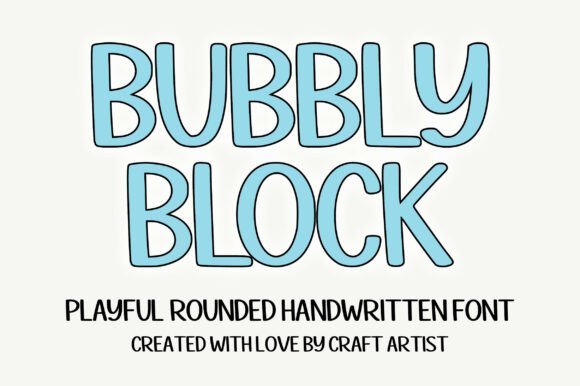
Have you ever been brainstorming a new design project and suddenly, a burst of creativity hits you? You envision a colorful, whimsical world that radiates joy and playfulness. That’s exactly the kind of vibe you can achieve with the Bubbly Block Font.
Bubbly Block Font is a delightful, rounded handwritten font that brings a smile to any design. Its bold, bubbly shapes and smooth curves make it perfect for kids’ designs, branding, stickers, t-shirts, planners, social media, posters, and cheerful creative projects. Whether you’re a seasoned designer or just starting out, this font is a valuable addition to your toolkit.
Bubbly Block Font Key Features
- Unique Characteristic: Features a unique bubbly design with rounded edges and soft corners
Bubbly Block Font Review
Overall, I’d say the Bubbly Block Font is a fun and playful typeface. ✨ It’s perfect for creating a carefree atmosphere in children’s books, social media, or even packaging design. The bubbly curves and rounded edges give off a sense of whimsy, making it an excellent choice for brands that want to appear friendly and approachable.
One of the things that I love about Bubbly Block is its versatility. ✨ You can use it in various contexts, from headings to body text, and it will always add a touch of personality to your design. The font also comes in a range of weights and styles, allowing you to customize it to fit your specific design needs.
However, there are a few limitations to consider. ⚠️ For one, the font may not be suitable for formal or professional designs, as its playful nature may come across as unprofessional. Additionally, the font may not be as legible at smaller sizes, which can be a concern if you plan to use it in text-heavy designs.
Here are some pros and cons to consider:
- ✨ Fun and playful design
- ✨ Versatile and customizable
- ⚠️ May not be suitable for formal designs
- ⚠️ May not be legible at smaller sizes
Bubbly Block Font: A Practical Application Guide
For the most effective use of Bubbly Block Font:
1. Use it sparingly to add visual interest to headings or titles.
2. Pair it with clean, simple fonts for maximum readability.
3. Experiment with different font sizes and colors to create a unique look.
Bubbly Block Font is ideal for:
1. Designing playful, eye-catching headings.
2. Creating visual interest in presentations or social media graphics.
3. Adding a touch of whimsy to branding materials or marketing materials.
Alternatives to Bubbly Block Font
Playfair Display is a luxurious, elegant font ideal for titles and headings. It features intricate details and swashes, making it perfect for high-end designs, such as luxury branding and special occasions.
Compared to Bubbly Block Font, Playfair Display is more formal and sophisticated, while Bubbly Block Font is playful and fun.
Great Vibes is a modern, cursive font suitable for headings, titles, and quotes. It features a unique, flowing design that adds a touch of elegance to any design.
Unlike Bubbly Block Font, Great Vibes is more fluid and organic, while Bubbly Block Font is block-based and geometric.
Pacifico is a beautiful, modern script font ideal for titles, headings, and quotes. It features a relaxed, beachy vibe, making it perfect for summer designs and travel branding.
Compared to Bubbly Block Font, Pacifico is more casual and laid-back, while Bubbly Block Font is more playful and energetic.
Alex Brush is a elegant, handwritten font suitable for titles, headings, and quotes. It features a unique, brush-stroke design that adds a touch of sophistication to any design.
Unlike Bubbly Block Font, Alex Brush is more refined and delicate, while Bubbly Block Font is more playful and bold.
Unlocking Creativity with Bubbly Block Font
Project 1: Whimsical Welcome Sign
Create a playful and eye-catching welcome sign for your home or office using Bubbly Block Font.
How to use Bubbly Block Font:
Use Bubbly Block Font for the main text of the welcome sign, and pair it with a solid-colored background to make the font pop.
Is Bubbly Block Font compatible with right-to-left languages?
Yes, Bubbly Block Font is designed to be compatible with right-to-left languages, including Arabic, Hebrew, and other languages that require text to be rendered from right to left. This ensures that the font can be used effectively in a wide range of design applications and cultural contexts.